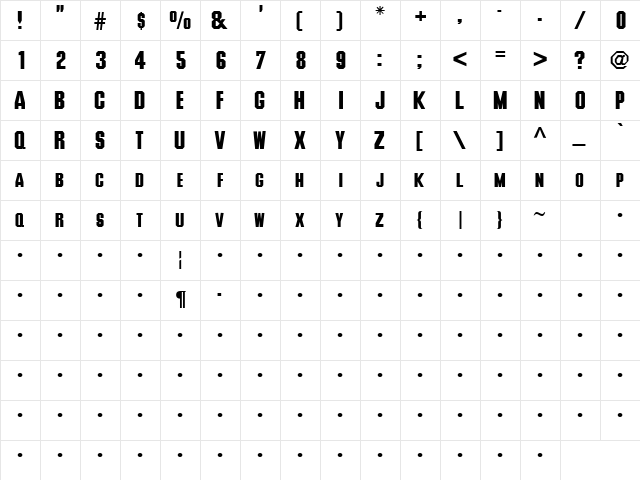
QTDeuce Regular
Design Context for QTDeuce Typeface
QTDeuce takes a measured approach to typography — its balanced proportions and neutral character make it a reliable workhorse for both digital and print work.